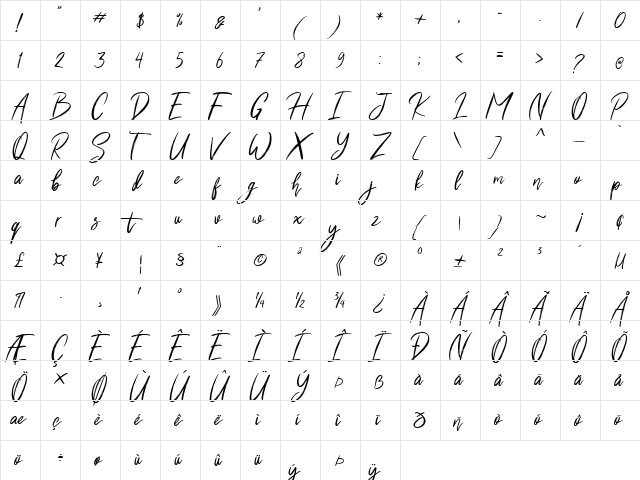
Shutten Reason Free Regular
| Foundry | Ferry Hadriyan (feydesign) |
Design Context for Shutten Reason Free Typeface
Shutten Reason Free is a composed and adaptable typeface that performs quietly and consistently across a wide range of design contexts.